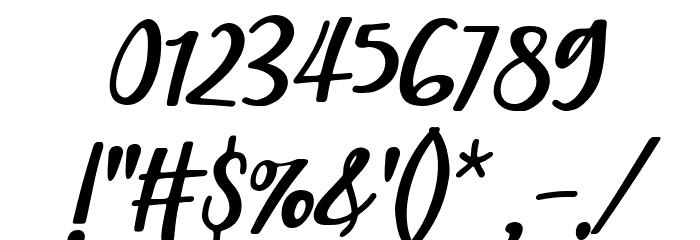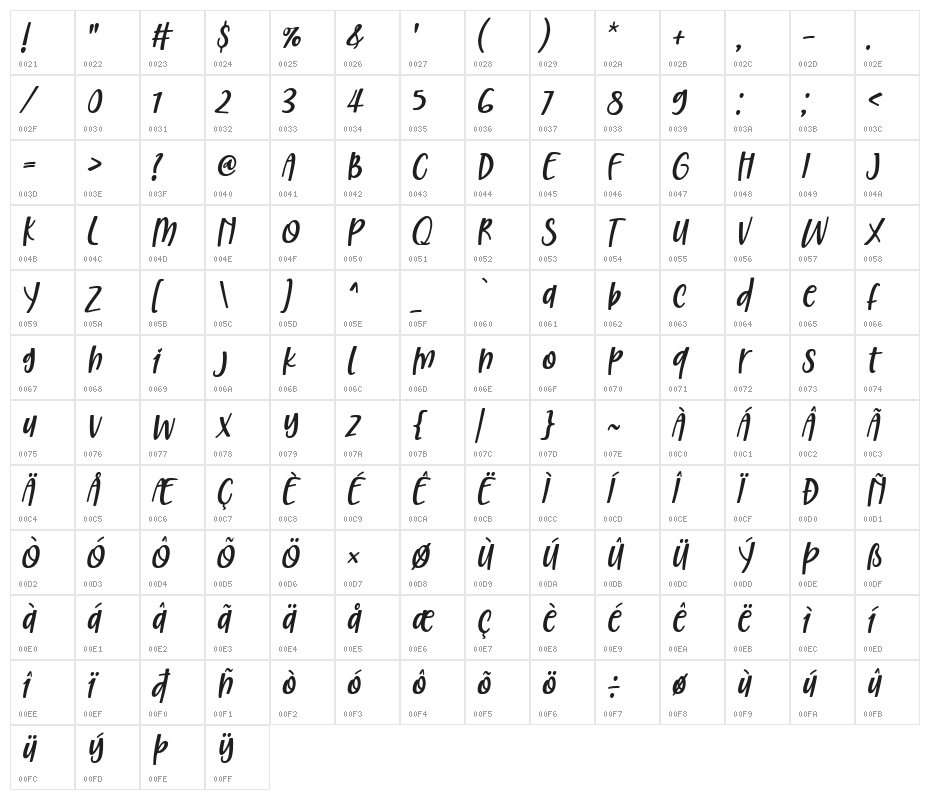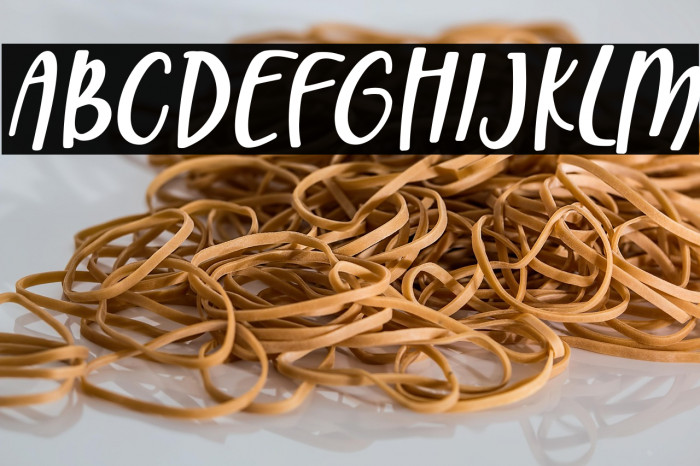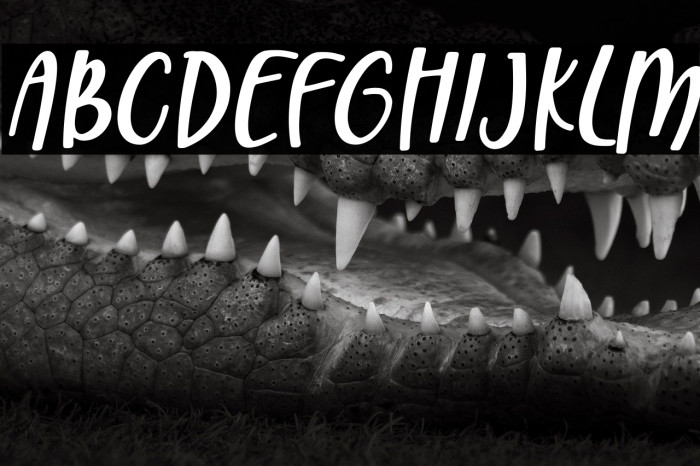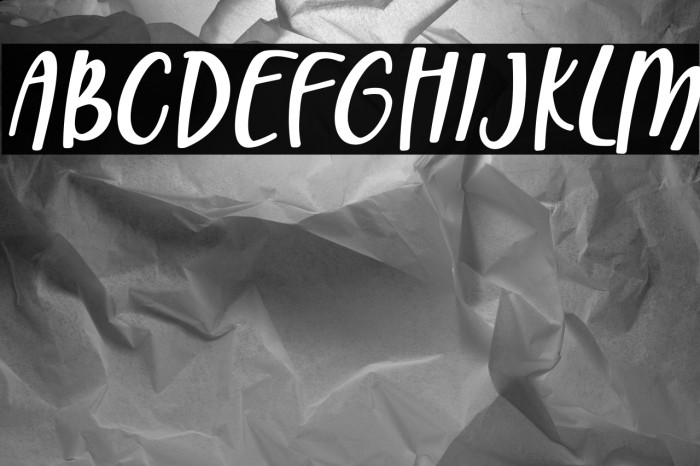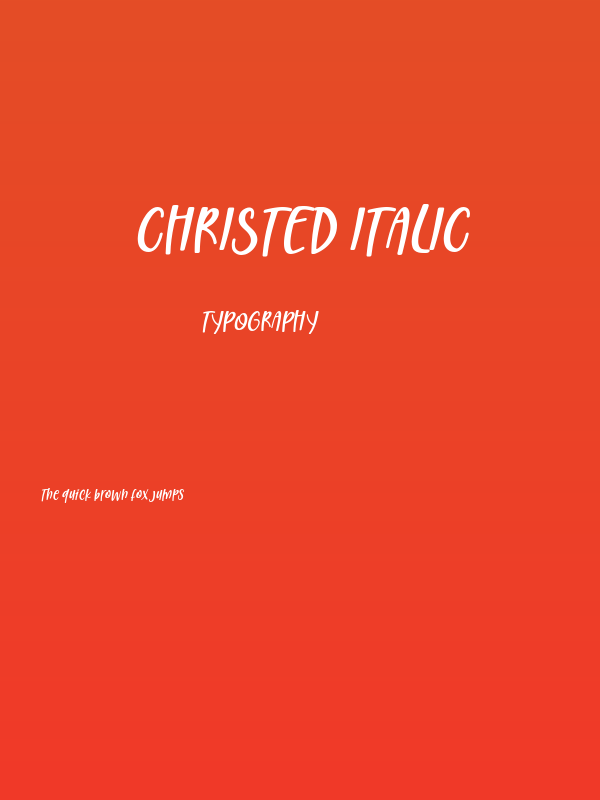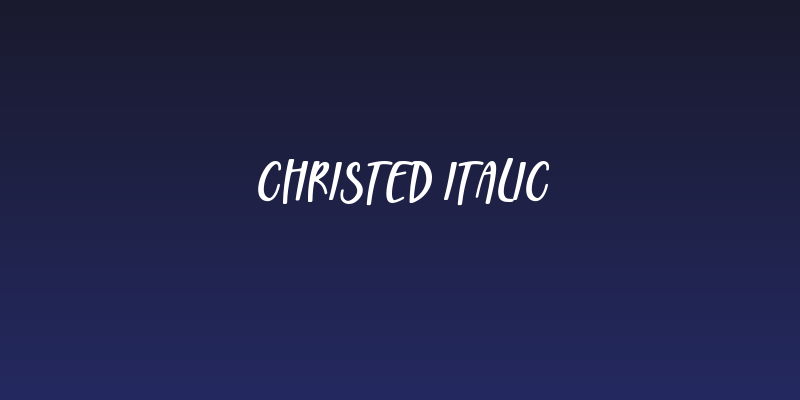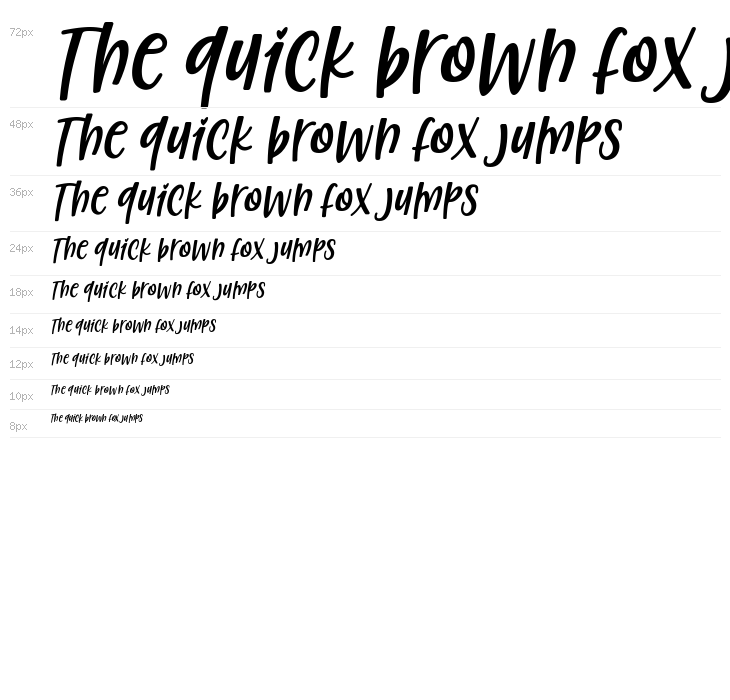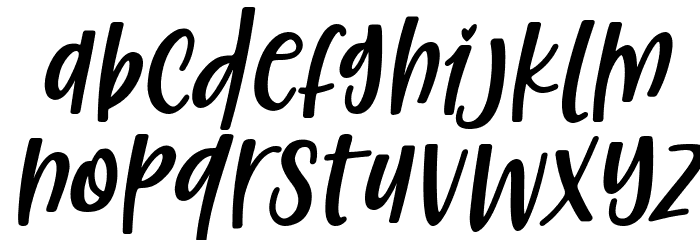
Christed Italic Font
Christed Italic Description
This font features a lively and dynamic script style with a playful, handwritten appearance. The letters are slightly slanted, giving it an italicized look that adds a sense of movement and fluidity. The strokes are bold and consistent, with rounded edges that contribute to its friendly and approachable feel. The uppercase and lowercase letters maintain a cohesive style, while the numerals and special characters are designed to match the overall aesthetic. This font is ideal for projects that require a personal touch or a casual, informal vibe.